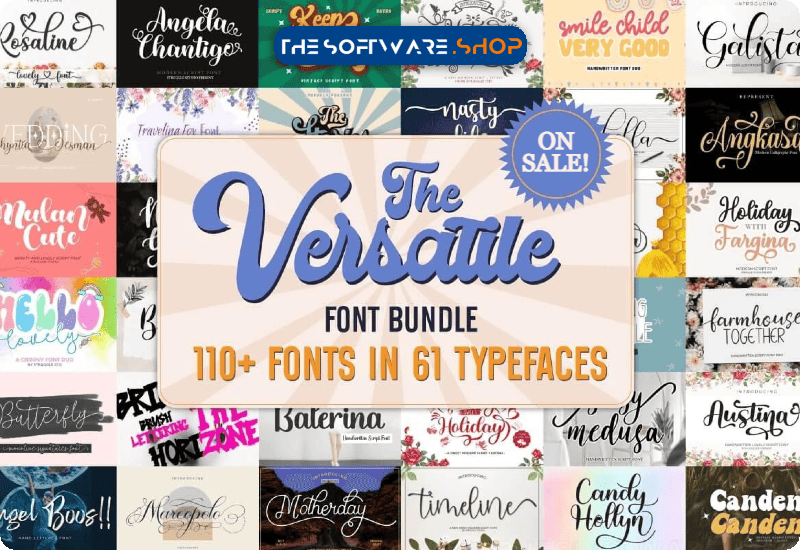
Premium Fonts included in this bundle:
- Justin Hailey Monoline Font Script & Handwritten Font
- Rosaline Czcionki Indeksowe Czcionka
- The Stories Duo Display Font
- Paradise Garden Script & Handwritten Font
- Marcopolo Script & Handwritten Font
- Wedding Chyntia Oesman Script & Handwritten Font
- Justin Hailey Modern Font Script & Handwritten Font
- Hello Lovely Script & Handwritten Font
- Angkasa Script & Handwritten Font
- Saturday Garden Script & Handwritten Font
- Smile Child Fuentes Display Fuente
- Motherday Script & Handwritten Font
- Balerina Script & Handwritten Font
- Kids Scratch Script & Handwritten Font
- Timeline Script & Handwritten Font
- Billie Endria Script & Handwritten Font
- Farmhouse Together Script & Handwritten Font
- History Love Script & Handwritten Font
- Butterfly Script & Handwritten Font
- Anabele Script & Handwritten Font
- Baby Medusa Script & Handwritten Font
- Nasty Life Script & Handwritten Font
- Megan Nice Script & Handwritten Font
- Hello Thageda Script & Handwritten Font
- The Justin Romance Script & Handwritten Font
- Smile Child Very Good Script & Handwritten Font
- Safella Script & Handwritten Font
- Smart Child Script & Handwritten Font
- Bring Me the Horizon Polices de Caractères Police
- Galista Script & Handwritten Font
- Rose Madina Display Font
- Austina Script & Handwritten Font
- Farming in Jungle Dingbats Font
- Keep Humble Script & Handwritten Font
- Holiday with Fargina Script & Handwritten Font
- Baby Sweet Holliday Fuentes Caligráficas Fuente
- History Jasmin Script & Handwritten Font
- Candy Hollyn Script & Handwritten Font
- Canden Display Font
- Angel Boos Script & Handwritten Font
- Fresh Hansler Script & Handwritten Font
- Angela Chantigo Polices de Caractères Police
- Hello Belamy Fuentes Caligráficas Fuente
- Master Elegant Script & Handwritten Font
- Helena Girl Script & Handwritten Font
- Nebula Glorius Script & Handwritten Font
- Pastela Script & Handwritten Font
- Diana Custin Script & Handwritten Font
- Honey Batter Script & Handwritten Font
- Nature Script & Handwritten Font
- Tapak Beukah Font Corsivi Font
- Diana Yesteny Script & Handwritten Font
- Wonder Bright Script & Handwritten Font
- Ghoppters Script & Handwritten Font
- Halland Script & Handwritten Font
- Gempi Script & Handwritten Font
- Marley Garden Script & Handwritten Font
- Valentina Script Font Corsivi Font
- Santaria Polices de Caractères Police
- Mulan Cute Script & Handwritten Font
- Mantul Pro Fuentes Sans Serif Fuente
Premium Fonts for Captivating Designs
Looking to create stunning designs that leave a lasting impression? Look no further than The Versatile Font Bundle. This collection includes premium fonts like “Justin Hailey Monoline,” “Rosaline Czcionki Indeksowe,” and “The Stories Duo.” These fonts are meticulously crafted to add a touch of sophistication and style to any project. Whether you’re designing a logo, branding materials, or social media graphics, these premium fonts will transform your designs and make them unique and memorable.
Endless Possibilities for Creative Projects
With 61 fonts to choose from, The Versatile Font Bundle offers endless possibilities for your creative projects. From elegant script fonts like “Paradise Garden” and “Marcopolo” to playful handwritten fonts like “Smile Child” and “Kids Scratch,” this bundle has something for every style and mood. Whether you’re working on wedding invitations, flyers, or website designs, these fonts will bring your ideas to life and captivate your audience.